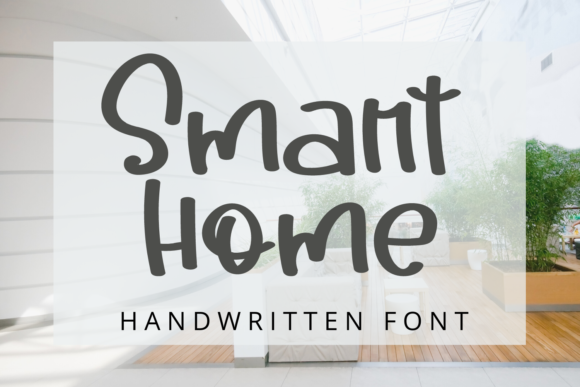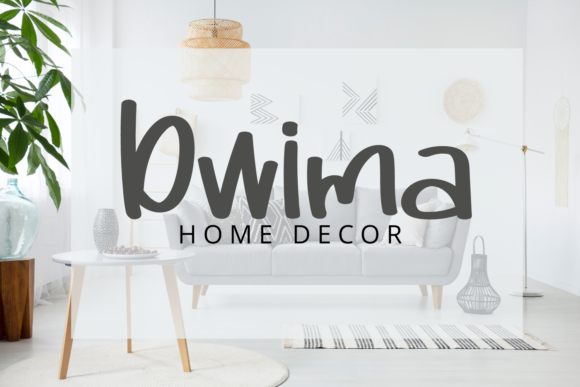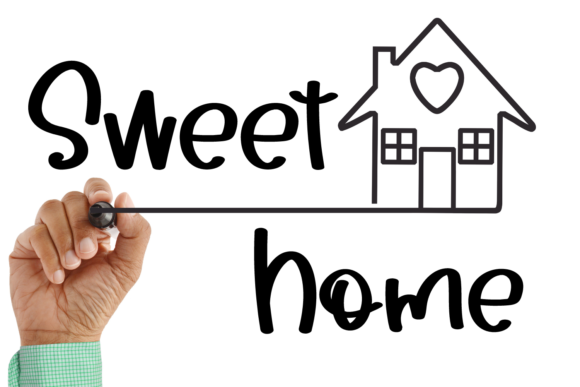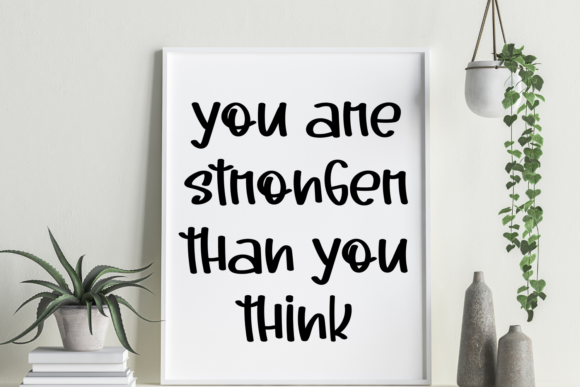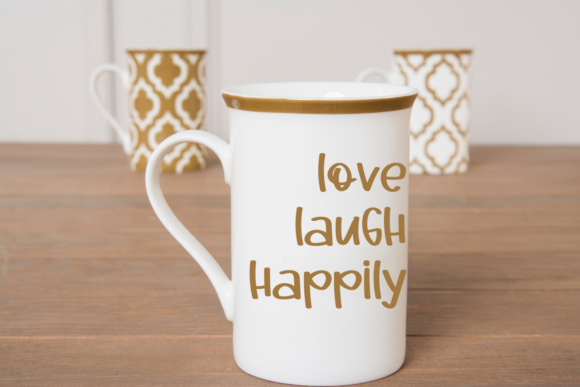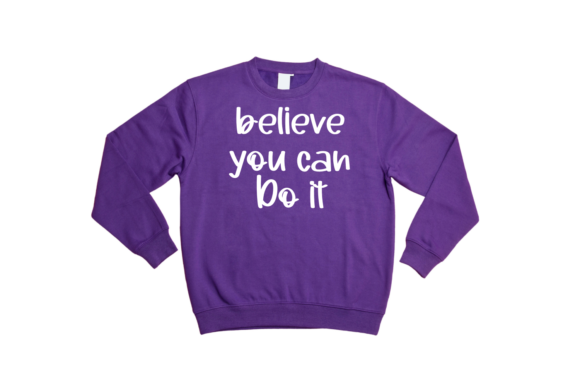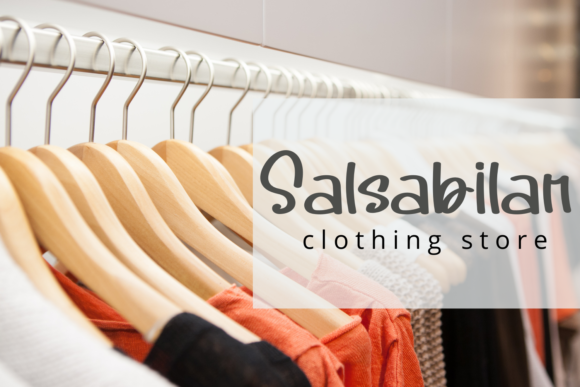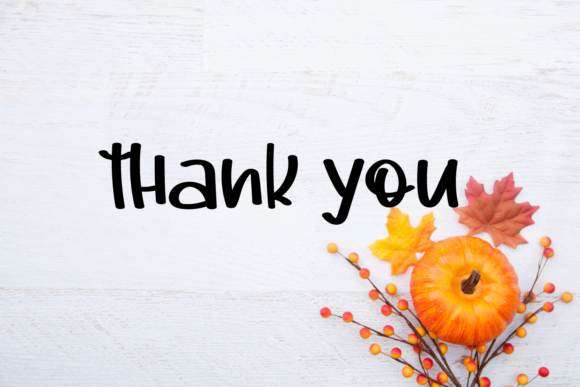
Smart Home Font
About Smart Home Font
Smart Home is a trendy and sweet handwritten font. Quirky and neat, this font will elevate each of your casual designs.